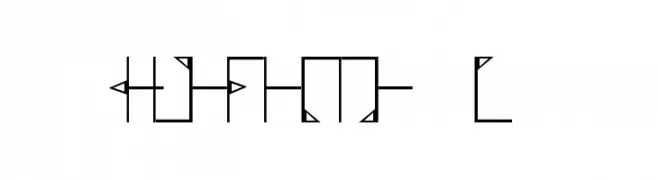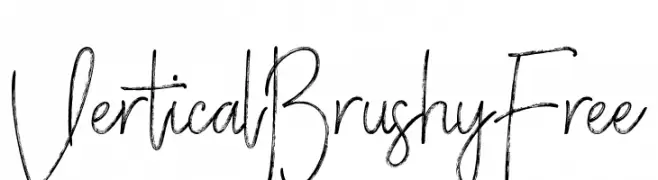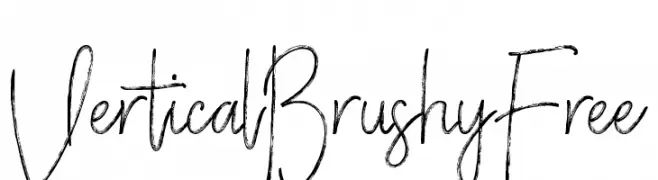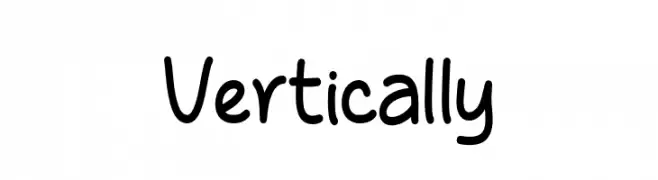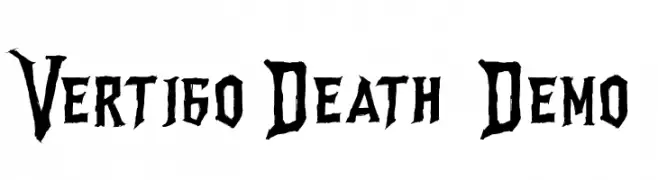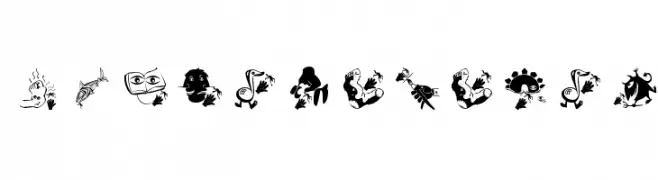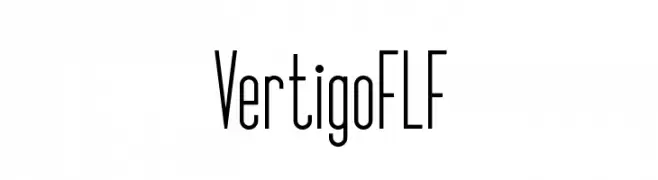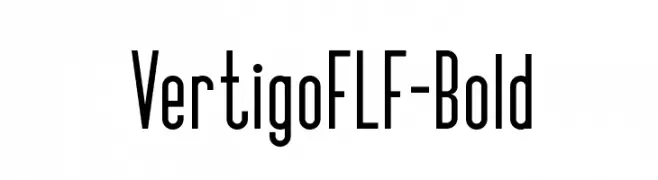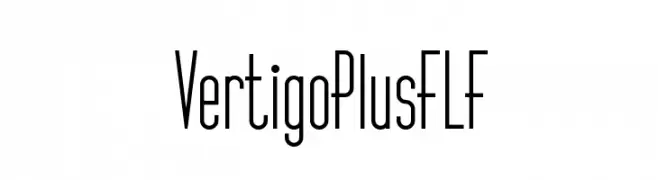
A geometric and angular font with a futuristic and abstract design.
A hand-drawn, brushstroke font with an artistic and casual style.
A dynamic, brush-style font with an artistic and hand-drawn appearance.
A playful, casual handwritten font with rounded, smooth letterforms.
A bold, jagged font with a gothic, horror-inspired design.
Whimsical cartoon dingbat font with playful, hand-drawn icons.
A tall, narrow font with a modern and minimalistic design.
A bold, elongated font with a modern and sleek appearance.
A tall, narrow typeface with elongated characters and a modern style.